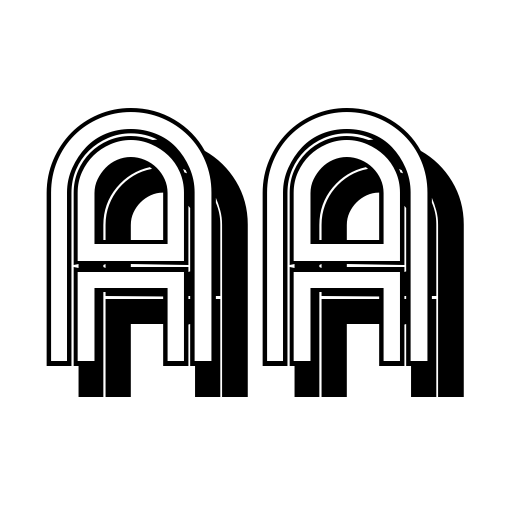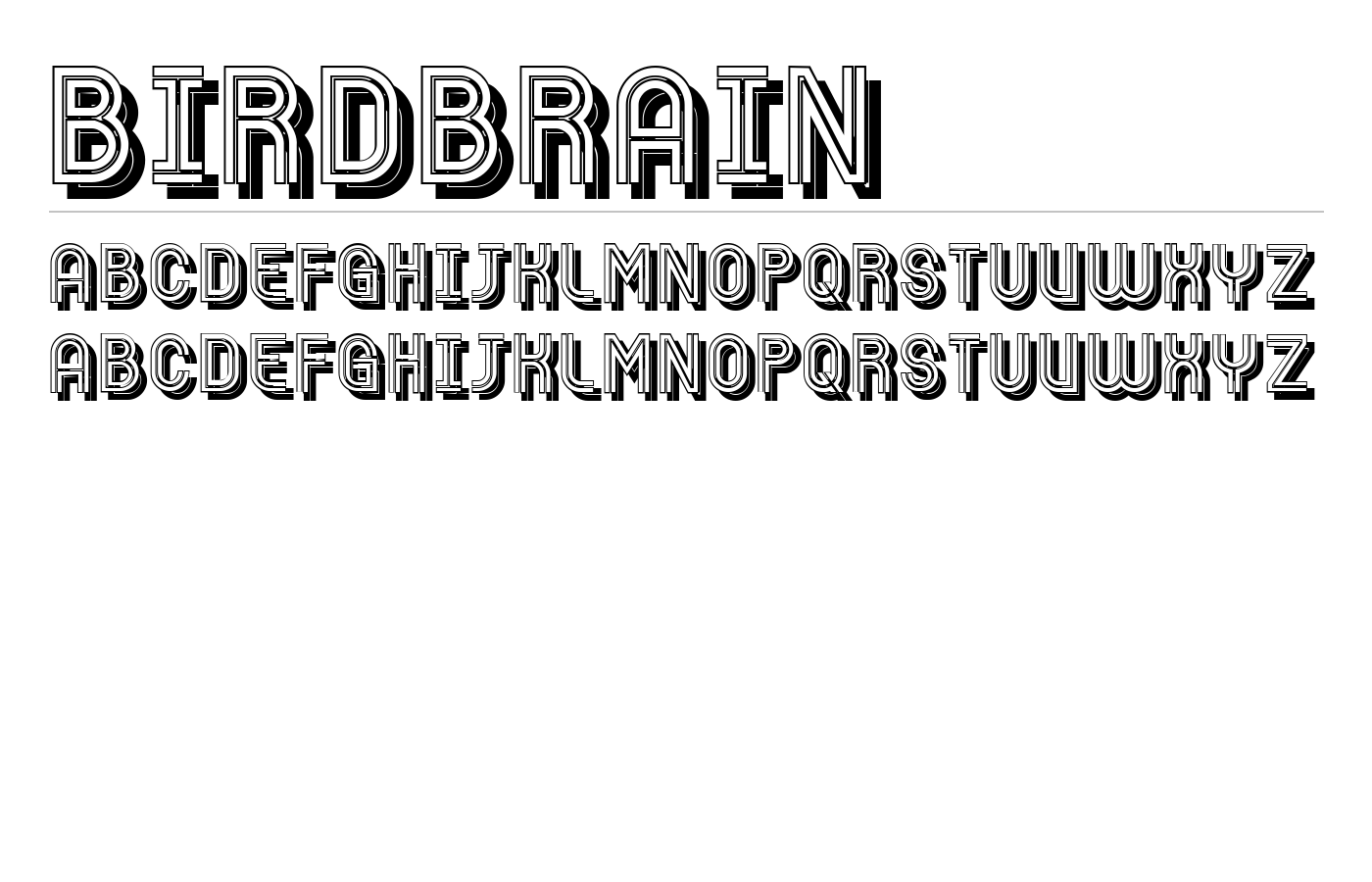
Birdbrain is a bold, all-uppercase display font with a strong retro vibe, featuring thick geometric sans serif letterforms and a distinctive layered shadow effect that adds depth and visual interest. Its playful yet structured design makes it ideal for headlines, logos, and posters where a striking, vintage-inspired look is desired. This font works best in creative branding and editorial design, bringing a fun and dynamic energy to a variety of visual projects.
Birdbrain Font
About Birdbrain Font